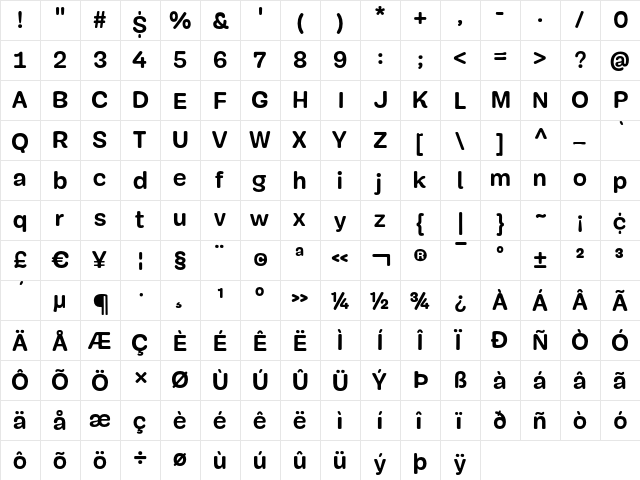
Mija Bold
| Foundry | Miguel HernǮdez |
| Designer | The Latinotype Foundry |
Design Context for Mija Typeface
Mija takes a measured approach to typography — its balanced proportions and neutral character make it a reliable workhorse for both digital and print work. The heavy weight commands attention and anchors typographic hierarchies.
Pro Tip: Use Mija in both headline and body roles to test its range before committing to a single application.